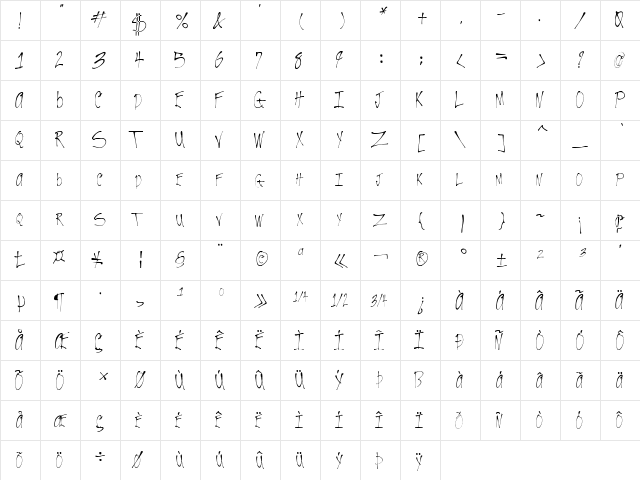
VTC-RoughedUp Thin
| Foundry | Larry E. Yerkes, aka-WolfBainx-Vigilante Typeface Corporation |
| Designer | WolfBainx , Larry E. Yerkes, Vigilante Typeface Corporation |
Design Context for VTC-RoughedUp Typeface
VTC-RoughedUp embraces imperfection — its rough, textured character adds raw authenticity to designs that want to feel lived-in and unconventional.
Suited to punk-influenced zines, underground music branding, streetwear, and raw, anti-corporate design.
Pro Tip: Pair VTC-RoughedUp with intentionally raw or lo-fi design elements. Fighting against it with overly polished surroundings will undermine its personality.